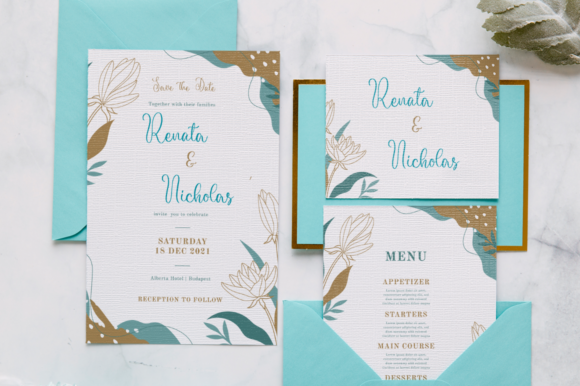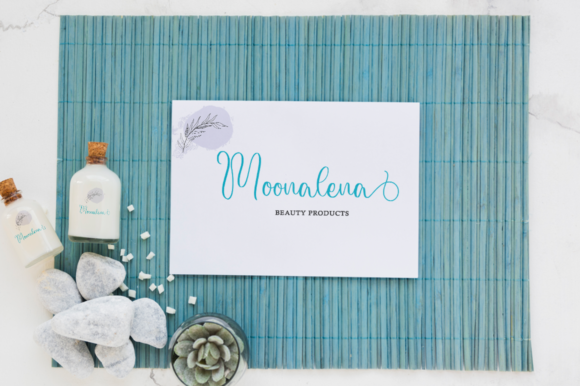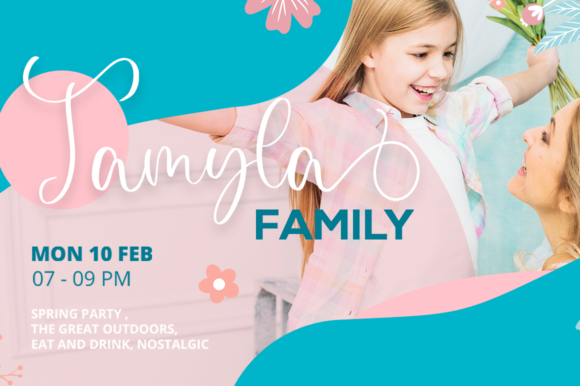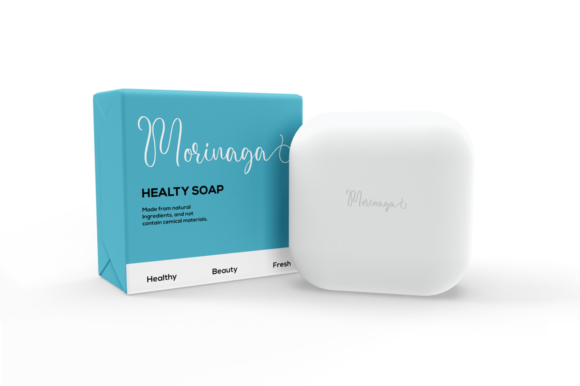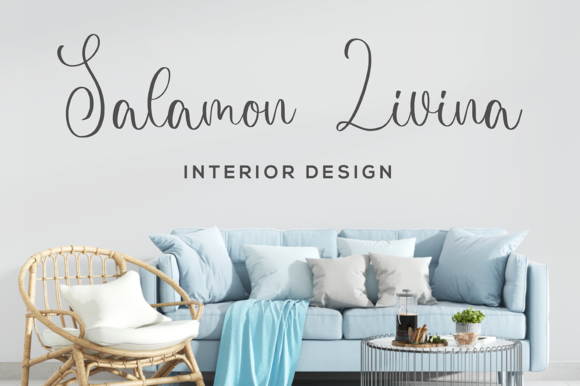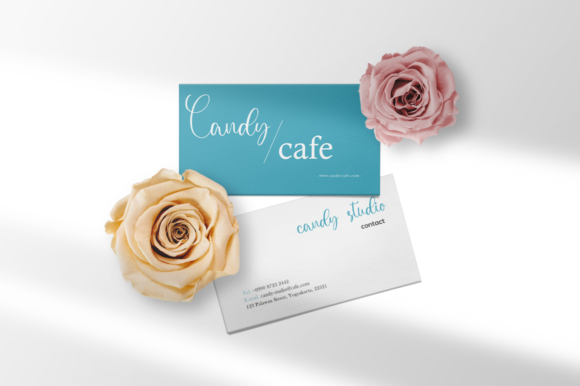
Introduction to Jeliska Font
Have you ever found yourself in a moment of pure creative bliss, surrounded by an endless canvas of possibilities? The pen is poised, the ideas are flowing, and the only thing that can bring it all together is the perfect font. That’s where the Jeliska Font comes in – a delicate and well-balanced calligraphy typeface that will add a luxury spark to any design project you can imagine.
With its elegant characters that dance along the baseline, the Jeliska Font is the ultimate design resource for any creative project. Whether you’re working on a high-quality brochure, a website with a transparent background, or a logo that demands attention, this font is sure to elevate your design to the next level.
Key Features of Jeliska Font
- High-quality design: The Jeliska Font is a unique and creative design resource ideal for various projects, including branding, advertising, and digital media.
- Transparent background: This feature makes the font highly versatile, allowing users to easily integrate it into different backgrounds and designs.
- High-resolution design: The font is designed at a high resolution, making it perfect for use in print and digital media applications where clarity is crucial.
- Unique characteristics: The Jeliska Font features a distinctive and creative style, setting it apart from other fonts in its class.
- Perfect for creative projects: With its unique design and high-quality construction, the Jeliska Font is an excellent choice for designers working on creative projects.
Honest Review: Jeliska Font
As a designer, I’m always on the lookout for high-quality fonts that can elevate my creative projects. Recently, I stumbled upon the Jeliska Font, and I must say, it’s been a game-changer for me.
What works well is its elegant and sophisticated design, making it perfect for projects that require a touch of sophistication. The Jeliska Font is also available for free download, which is a major plus. Its transparent background also makes it easy to layer and customize.
Some of the standout features of the Jeliska Font include:
- ✨ Elegant and sophisticated design
- ✨ Transparent background for easy customization
- ✨ Suitable for a wide range of creative projects
However, one limitation I’ve noticed is that the Jeliska Font is not as versatile as some other fonts. It’s primarily designed for formal and business-related projects, which may limit its use in more casual or creative projects.
Overall, I’m thoroughly impressed with the Jeliska Font. Its high-quality design and free download make it a valuable design resource. While it may have some limitations, I believe it’s a great addition to any designer’s toolkit.
How to Use Jeliska Font
Getting Started with Jeliska Font
The Jeliska Font is a high-quality design resource ideal for creative projects that require a unique touch. This free download offers a range of stylish and elegant characters perfect for adding a touch of sophistication to your work.
Tips for Getting the Most Out of Jeliska Font
To get the most out of Jeliska Font, experiment with different font sizes, colors, and combinations to create unique and eye-catching designs. You can also use it in conjunction with other design elements, such as graphics and images, to create a cohesive and professional look.
Common Use Cases for Jeliska Font
The Jeliska Font is particularly well-suited for use in creative projects, such as:
- Food and restaurant menus
- Event signage and displays